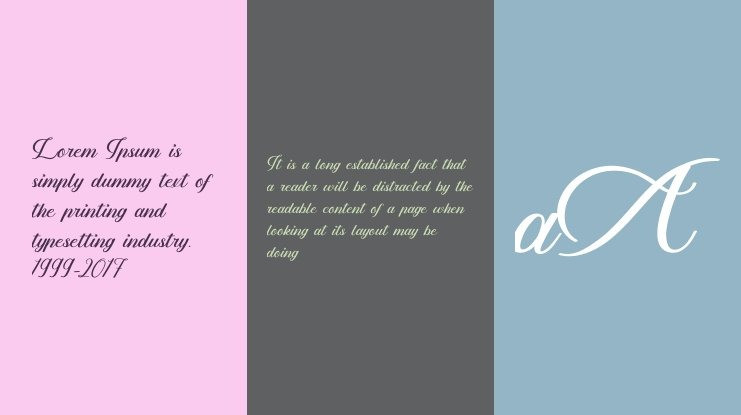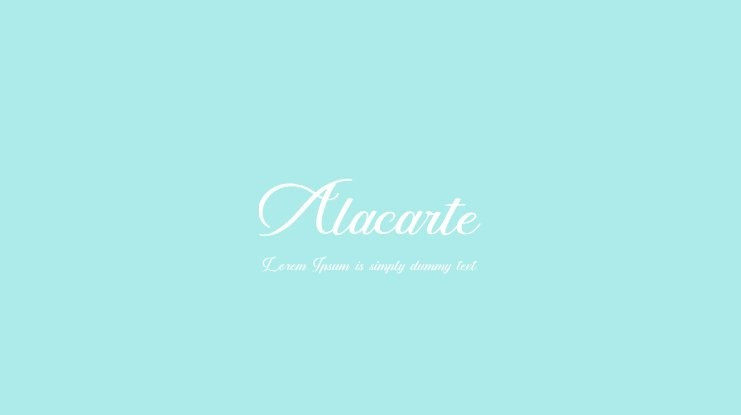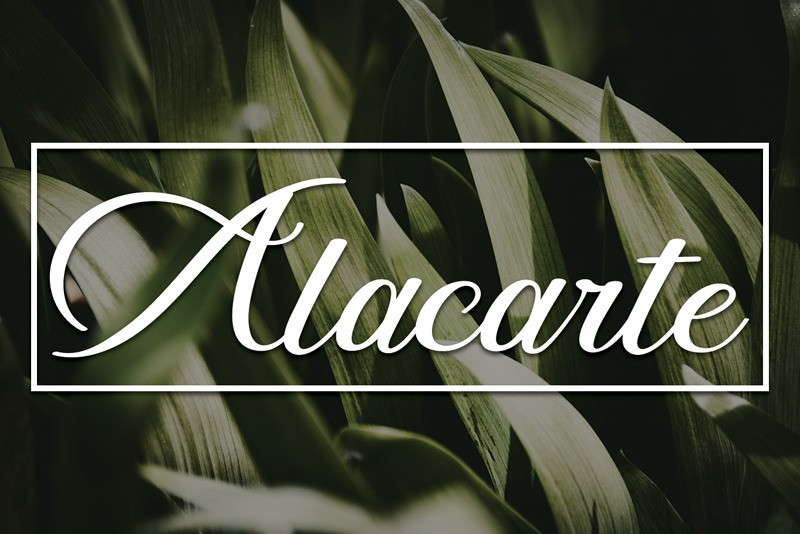
Alacarte Font
Alacarte Script Font is a stylish and incredibly elegant script font. It looks stunning on wedding invitations, thank you cards, quotes, greeting cards, logos, business cards and every other design which needs a handwritten touch.